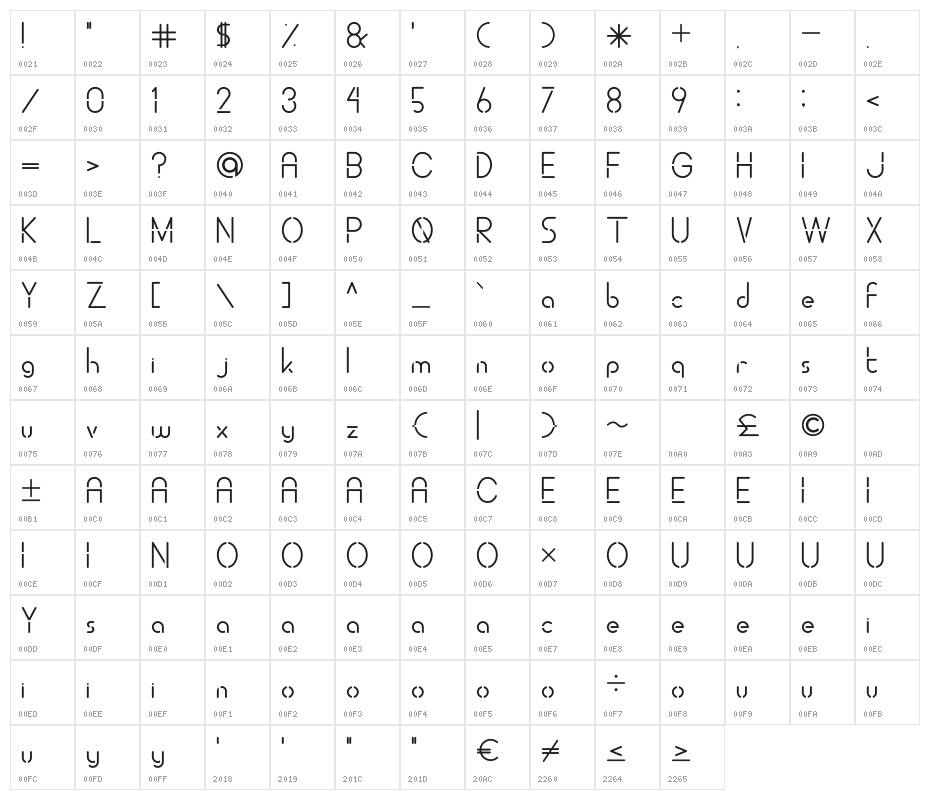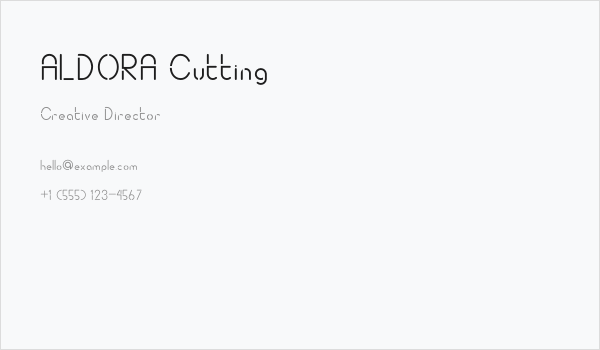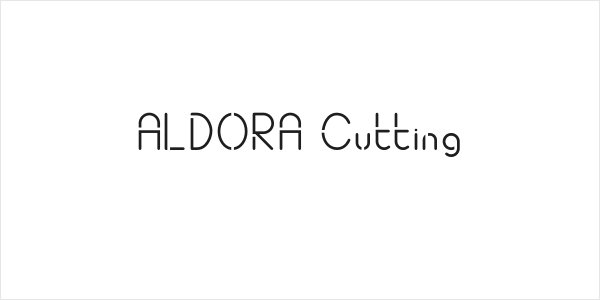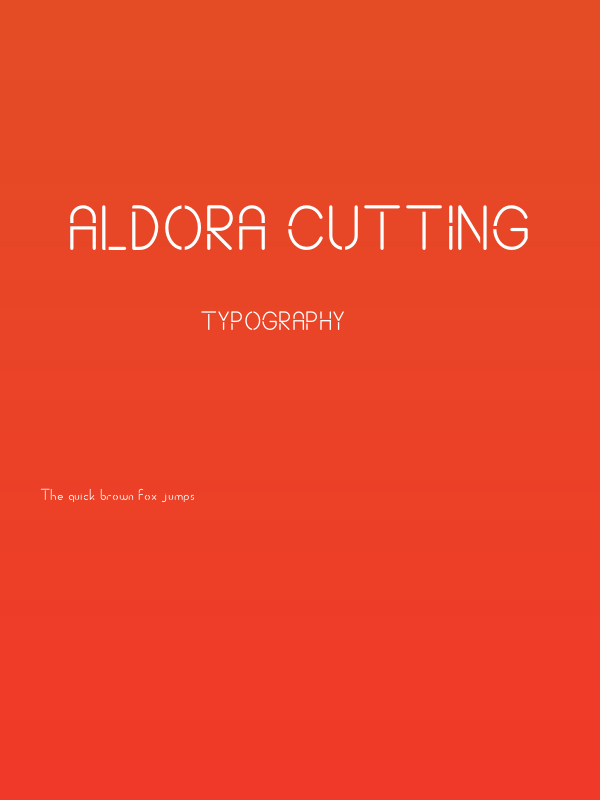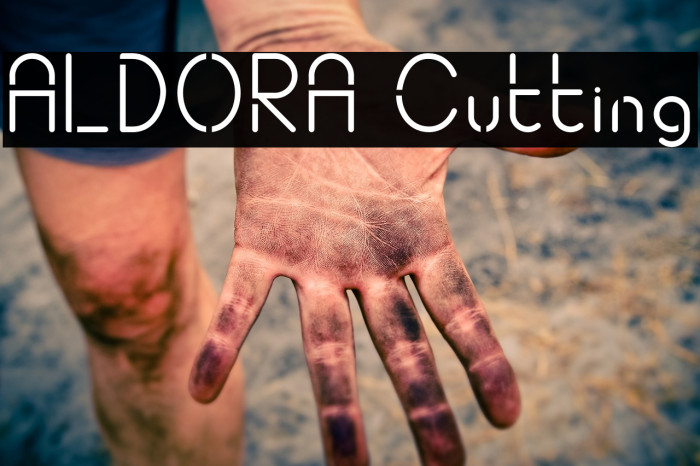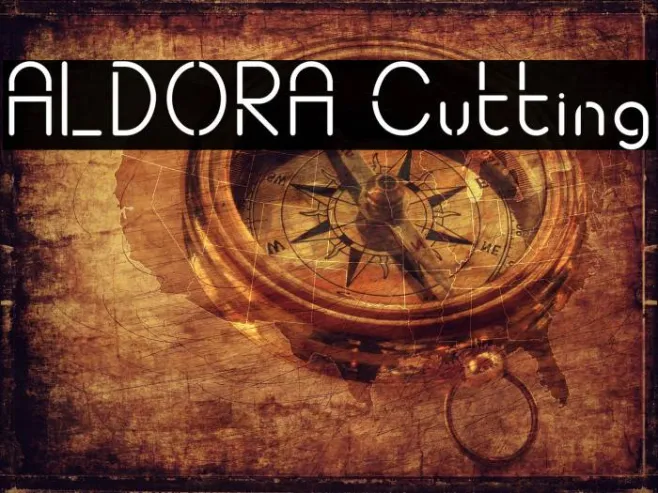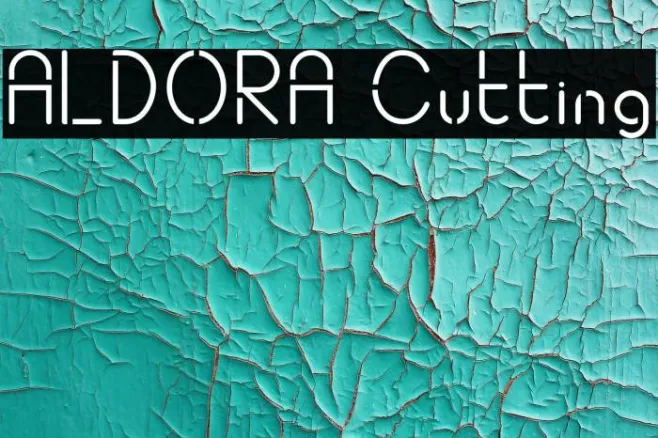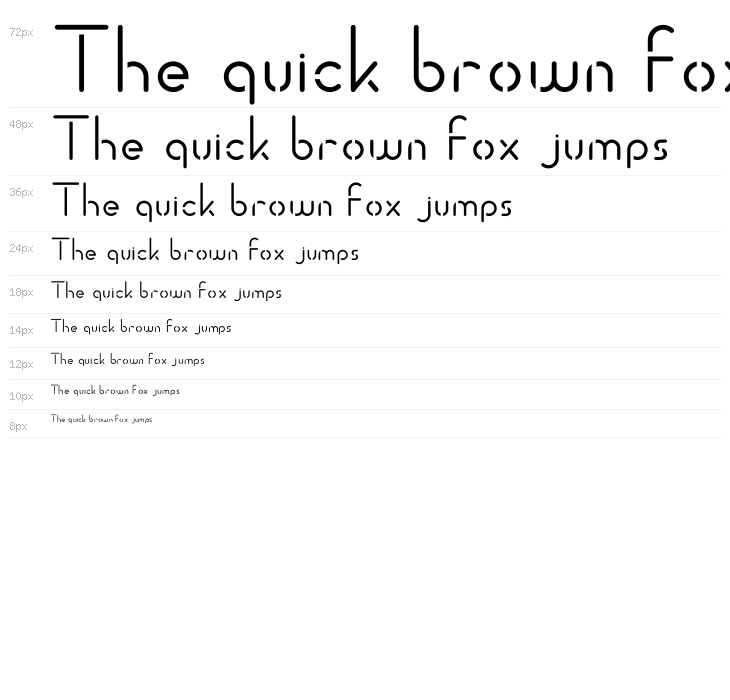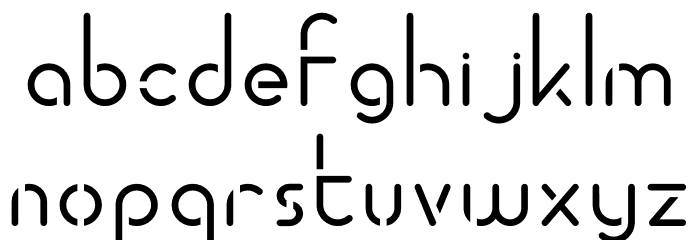
ALDORA Cutting Font
ALDORA Cutting Description
This font features a modern and geometric design with a unique cut-out style that gives it a futuristic and minimalistic appearance. The uppercase letters are characterized by clean lines and sharp angles, while the lowercase letters maintain a consistent roundness, creating a harmonious balance. The numerals and special characters follow the same design principles, ensuring uniformity across all glyphs. This font's distinctiveness lies in its partial disconnection of strokes, which adds an intriguing visual element without compromising legibility. Its sleek and innovative look makes it suitable for contemporary design projects.
| Proposed Projects | Ideal for branding, tech-related designs, modern advertising, and futuristic themes. |